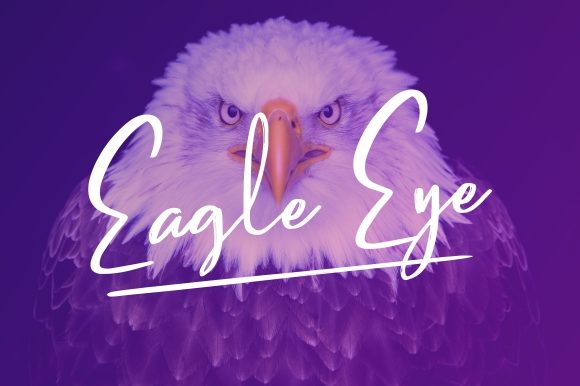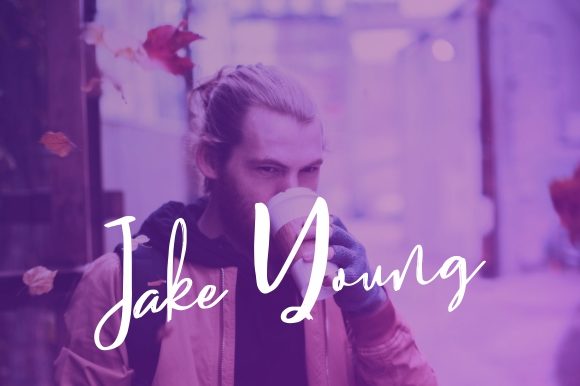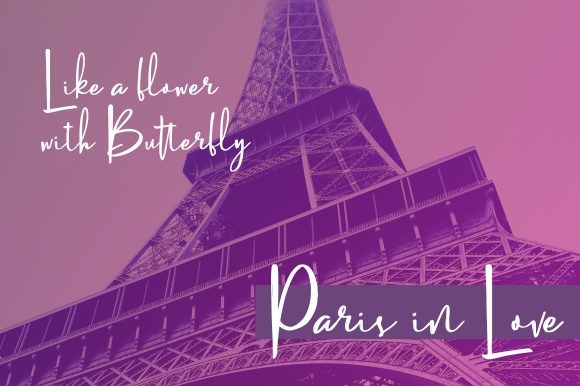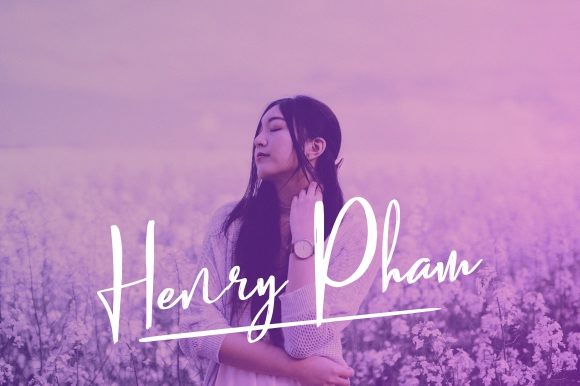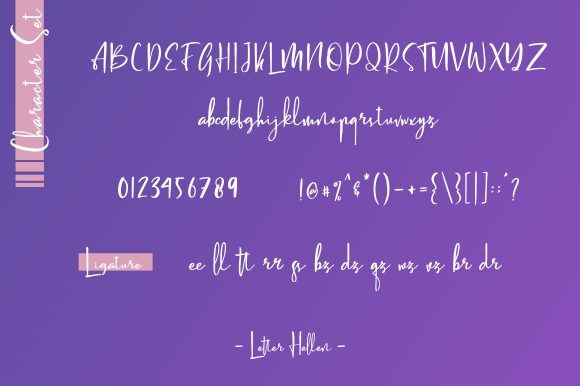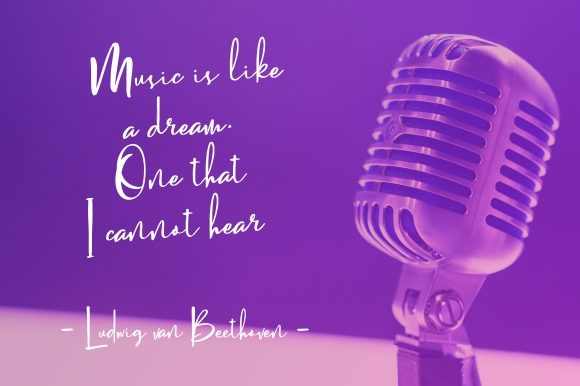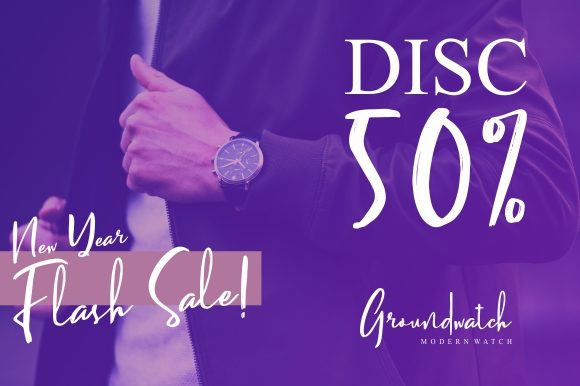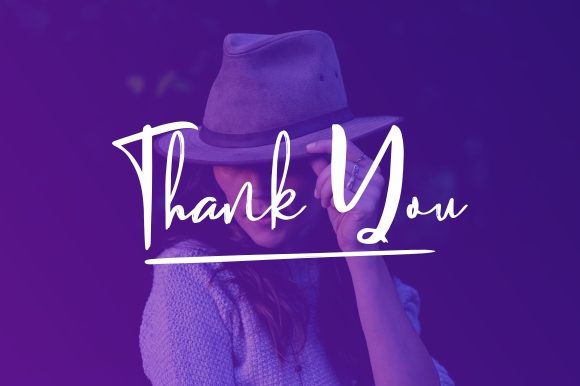
Letter Hellen Font
About Letter Hellen Font
The Letter Hellen is a signature dry brush font. It has elegant lines which makes it perfect for giving your design a feminine and natural feel.
It’s perfect for logos, invitations, stationery, wedding designs, social media posts, advertisements, product packaging, product designs, labels, photography, watermarks, special events, and more!